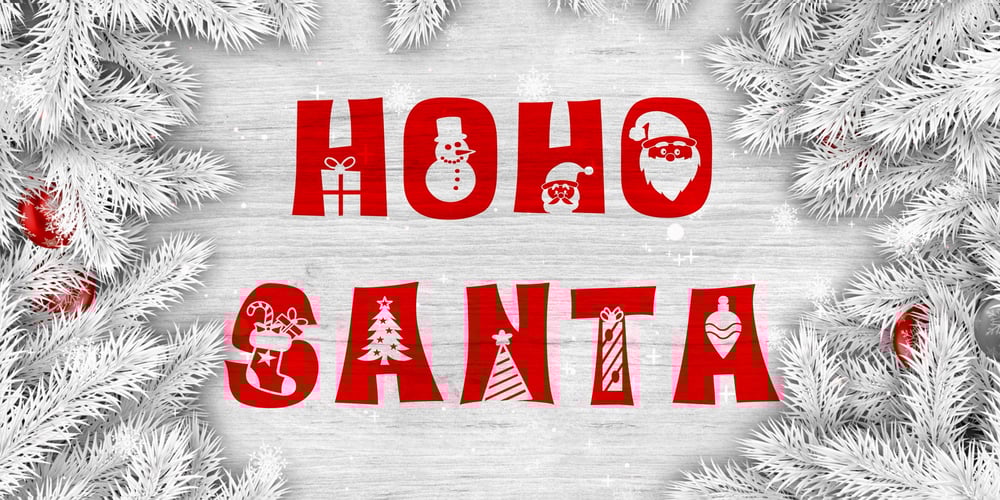
HOho SANTa
HOho SANTa font
HOho SANTa Font Family was designed by Ioanna Ladopoulou and published by Joanna Vu. HOho SANTa contains 1 styles and family package options. Hoho Santa is a festive, playful font, designed in a way that Christmas elements (santa, snowman, reindeer, bells, etc) form out of each letter, making the font unique and ideal for your special projects, logos, headlines, banner titles etc. I recommend mixing uppercase and lowercase, for and even more striking result!Hoho Santa supports most latin-derived languages, as well as Greek and Cyrillic.